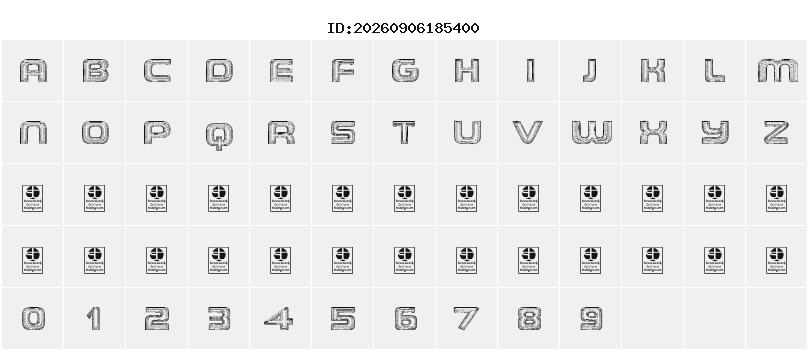
THE WIREFRAME Demo Preview
• Font Name: THE WIREFRAME Demo
• Full Font Name: THE WIREFRAME Demo
• Version: Version 1.00 February 12, 2016, initial release
• Character Count: 102
• Manufacturer: StudioTypo
About THE WIREFRAME Demo.otf
THE WIREFRAME Demo.otf is a modern, elegant sans-serif font designed for ultimate readability and visual harmony. Perfect for branding, headlines, web design, and print materials.